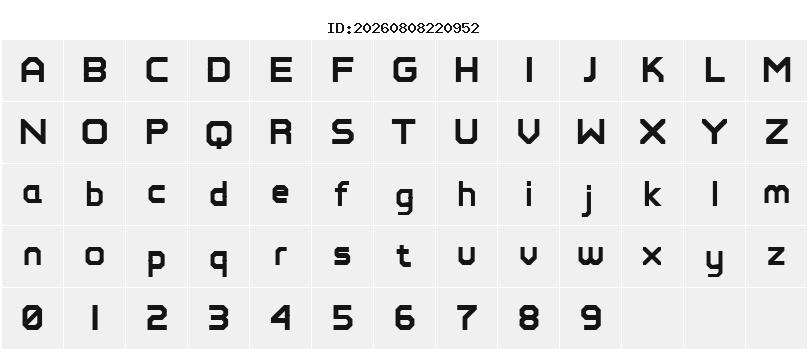
• Font Name: PixelPerfect
About PixelPerfect.ttf
PixelPerfect.ttf is a modern, elegant sans-serif font designed for ultimate readability and visual harmony. Perfect for branding, headlines, web design, and print materials.